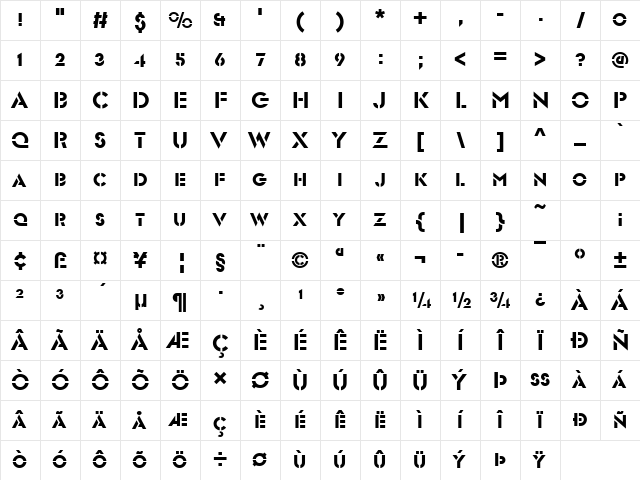
GlaserSteSCD Regular
Design Context for GlaserSteSCD
GlaserSteSCD is a composed and adaptable typeface that performs quietly and consistently across a wide range of design contexts.